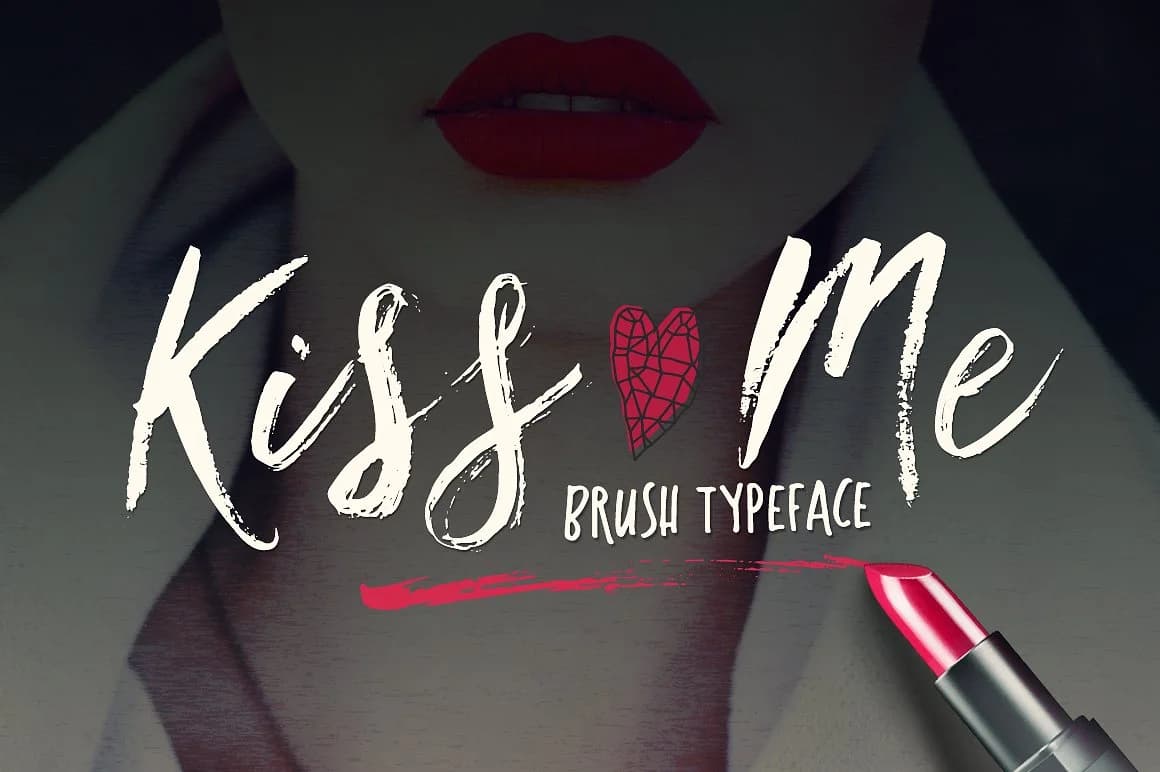
About Kiss Me Font
Kiss Me by Blessed Print is a script font with expressive, romantic letterforms that capture the intimacy of handwritten communication. The font's organic character makes it ideal for conveying authentic emotion in visual design, whether you're working on intimate stationery or personal branding projects. Each curve and stroke feels genuinely rendered, bringing that coveted handwritten warmth to designs that demand emotional resonance and refined sensibility.
This typeface shines in applications like bespoke wedding invitations, hand-crafted greeting card designs, minimalist event branding, and boutique packaging labels. The flowing glyphset works beautifully across both print and digital contexts, making it equally at home on a luxury cosmetics label or a personalized social media template. Beyond branding, designers rely on this script for custom vinyl applications, decorative wall decals, and monogrammed gift items that require both fine detail and emotional authenticity. Its versatile character set ensures legibility whether scaled up for signage or down for delicate label work.
Kiss Me Font brings genuine handwritten character to any project that values personal touch and refined aesthetics. This script delivers the sincerity that generic typefaces simply cannot match, making it invaluable for designers creating work that needs to feel genuinely personal rather than mass-produced. Get Kiss Me Font on Creative Fabrica and add this expressive script to your design collection.
Kiss Me Font is a script font that shines as a display or heading face. Pair it with a clean sans-serif or serif font for body text β the contrast creates a clear hierarchy while the two styles stay balanced and easy to read.